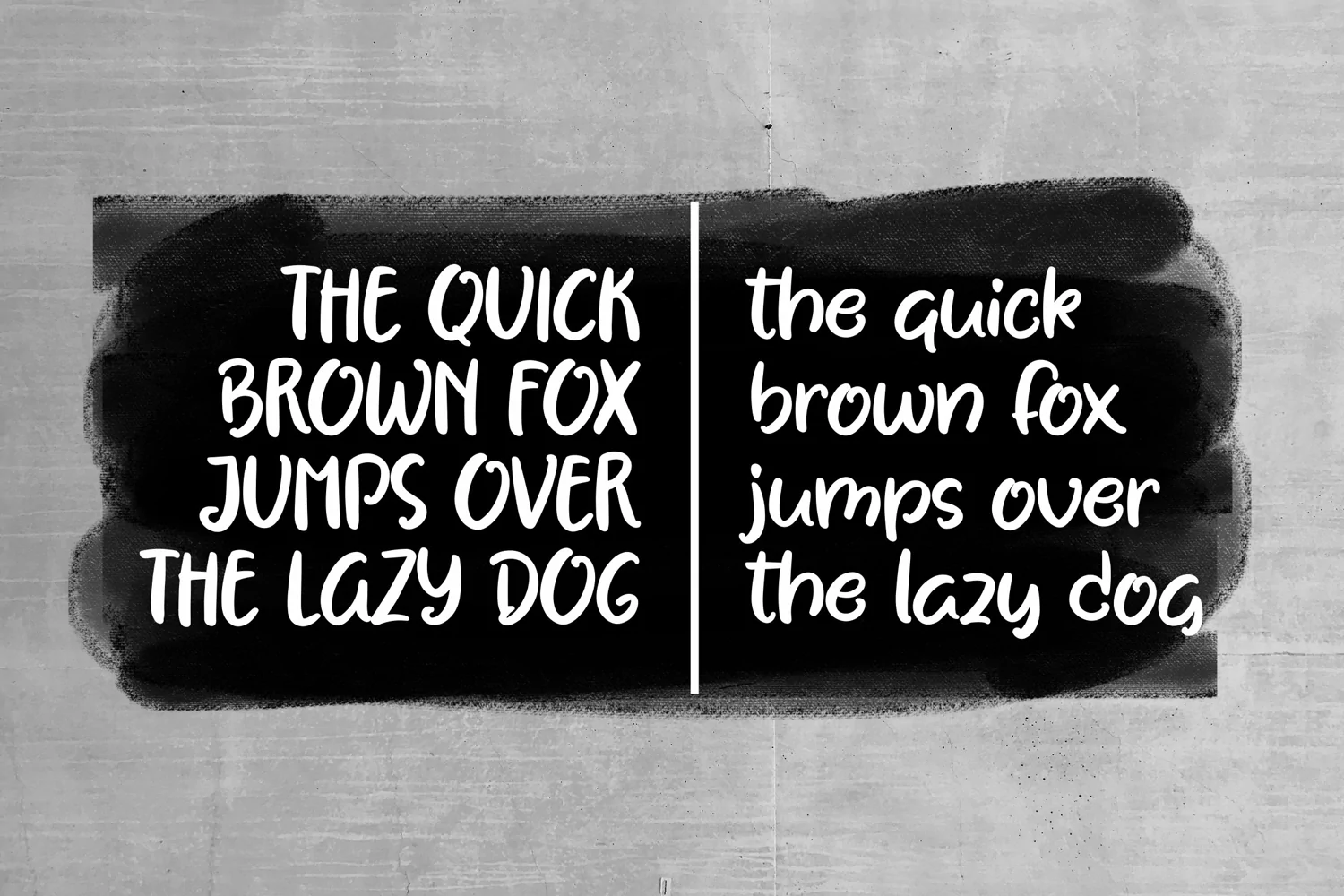
Goofy - Quirky Handrawn Font that contain lowercase, uppercase, symbol, and also support multi language. There’s a lot ligatures in this font. This Font also comes with ligatures, alternates and many more. this font suitable for fashion, branding, catalog and other design what you want.
Goofy